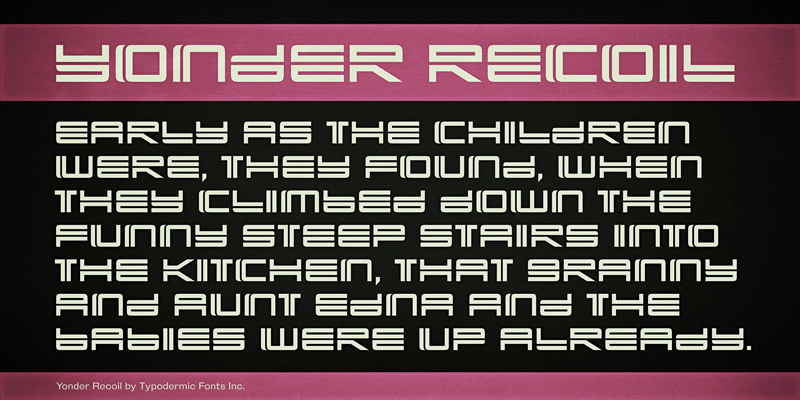
Preview and download Yonder Recoil Font. Created by Typodermic Fonts in Techno Sci-fi styles with 100% Free license.
Yonder Recoil is a twin-line techno font I made in 1997. I recently redrew it with more precision and a more interesting vertical split on some letters. This font includes a license that allows free commercial use: sometimes referred to as a desktop license. This allows you to install the font on a computer and use it to create posters, web graphics, game graphics, t-shirts, videos, signs, logos and more. Read the license agreement for details. If you'd like to embed this font in an app, ebook, on the web or anything that's not covered by the desktop license agreement, visit the link below. You'll find distributors who offer different types of licenses or you can contact me for help. http://typodermicfonts.com/yonder-recoil/ |